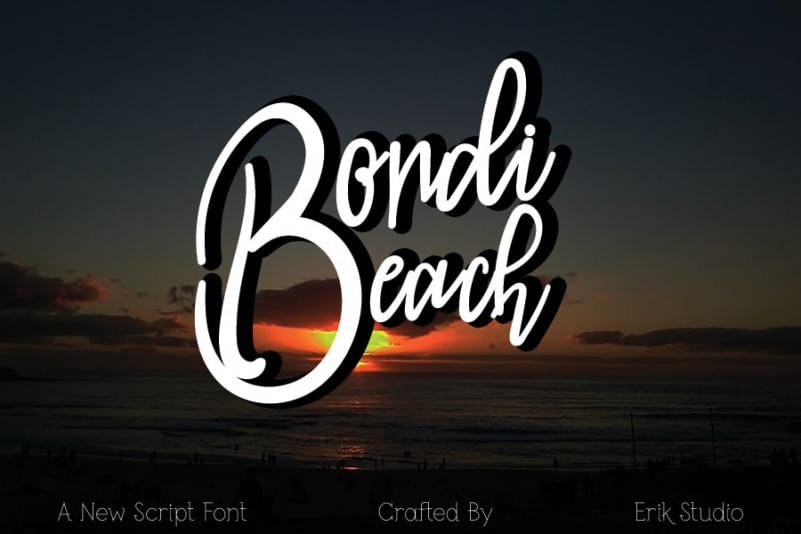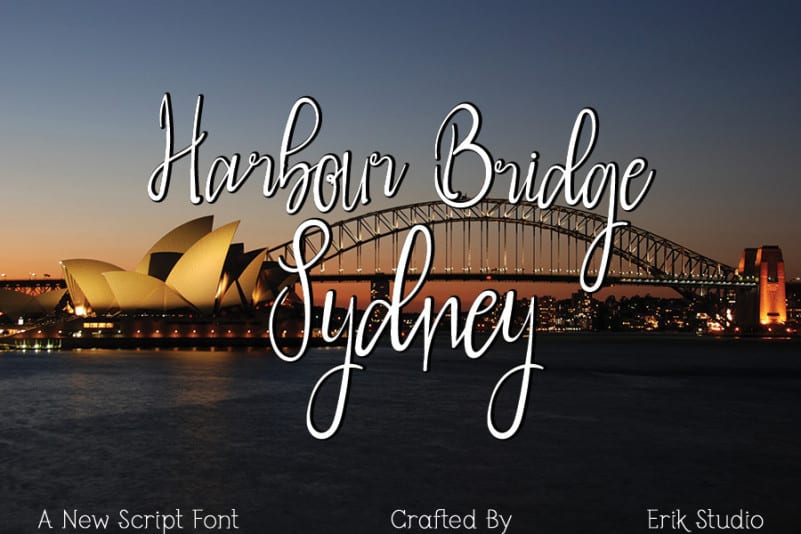
Sydney Script Font
Sydney Script Font is an incredibly unique handwritten font. Masterfully designed to become a true favorite, this font has the potential to bring each of your creative ideas to the highest level!